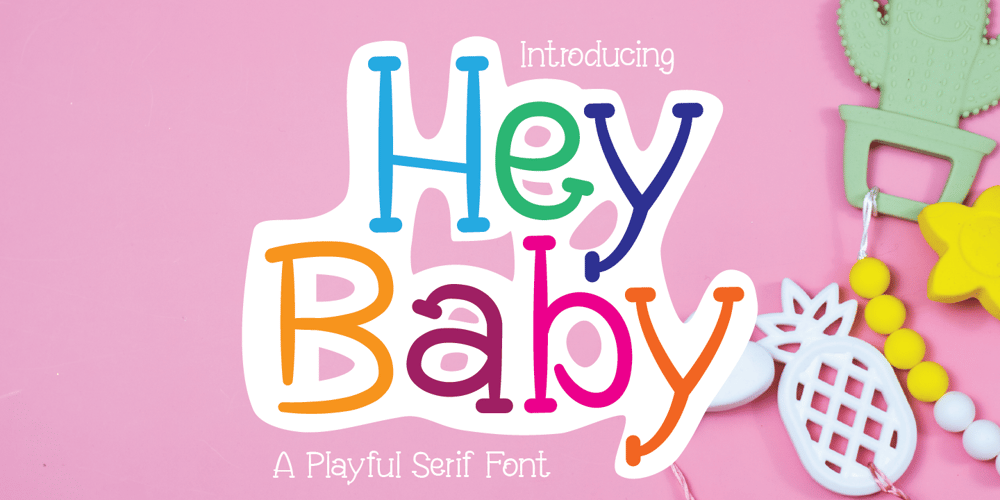
Hey Baby Font Family was designed by Muksalmina and published by Muksal Creatives. Hey Baby contains 1 styles and family package options. Hey Baby is a cute and charming display font. Whether you use it for cartoon related designs, children games or just any creation that requires a lovely touch, this font will be an amazing choice.